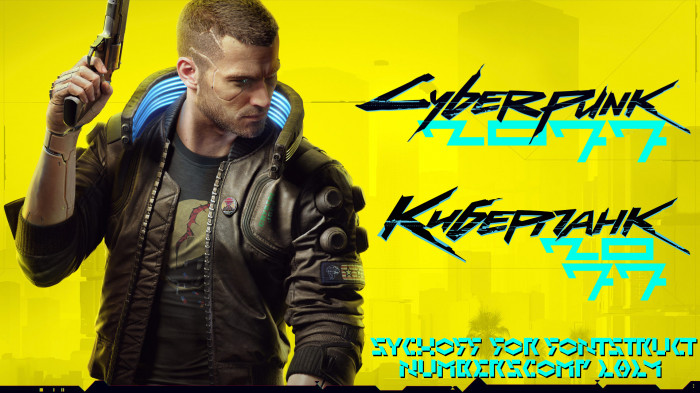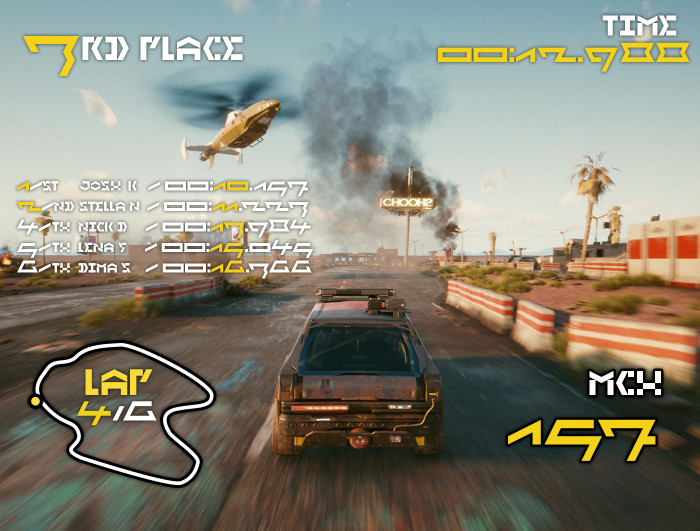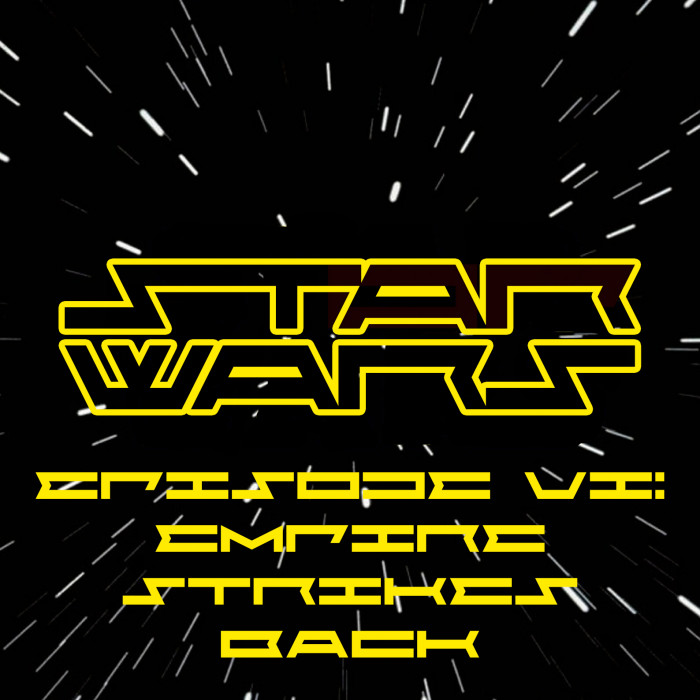
Nice numbers!
With filter:
Letters added. Because why not. See them in the German example
@Dmitriy Sychiov (Sychoff) - Love the font design and the samples.  My only quibble is that Empire was Episode V, not VI.  ;^)
@Goatmeal: Thank you, I really made a mistake, but I can't fix it anymore. And May the 4th be with you)
Like the font. Perhaps adjust Widths I'd letters to make the appear same widths. For example c can be a bit narrower, w could be a bit wider, etc.
@thalamic: Thanks. I didn't quite understand what you meant at the beginning. All my letters are now monospaced. But there are alternative options among lowercase letters in Cyrillic. Some letters have kerning, so you can’t completely call it monospaced, is that what you mean?
I saw that some of the glyphs were not the same width as the letters like the comma, so I figured it wasn't a monospace font. That's why I thought that optical widths of the letters could be visually made more uniform. Because the A has inward slanting slopes it appears narrower than the C which basically has two horizontal lines making it appear wider than other letters. Purely on a visual level, it would perhaps look nicer if all the letters "looked" the same width, which would technically mean they are all different widths.
@thalamic: Thank you, I understand what you mean, I was thinking the same thing at first, to make it optically more uniform and balanced. But I like some heterogeneity in fonts, some technical roughness, rigidity, brutality (I hope you understand what I mean). So I left it like that because it suits the character of this font.
Moreover, in the Cyrillic alphabet this rudeness is even more noticeable due to the too narrow letters Ж Ш Щ Ф Ю. Plus there was an idea that this font could be used to type text vertically, since due to the small height of the letters it is convenient.
I like the vertical stacking of the letters idea. Like neon signs in New York or Tokyo.